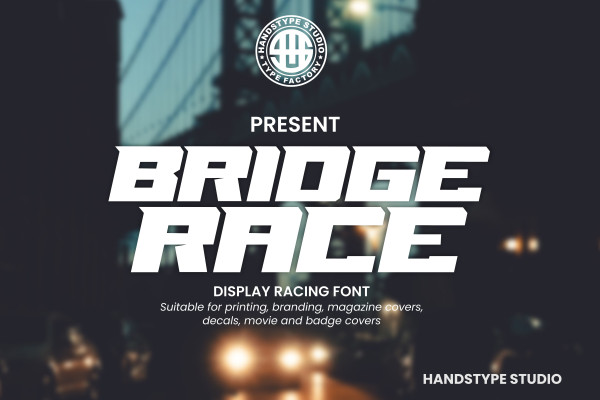
Brigde Race Font
Brigde Race Font, this bundle features strong, confident and powerful typefaces designed to work great with sports logos, club branding, apparel applications, labels and more.